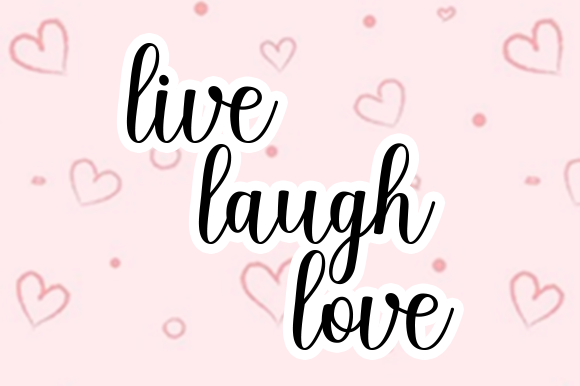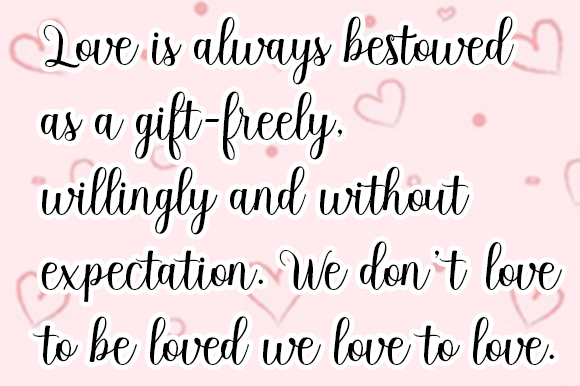
Western Font
db-ku.com - Script & Handwritten -- Western is a chic and natural script font that emanates sophistication and elegance. It’s perfect for any project that requires a stylish and authentic look!